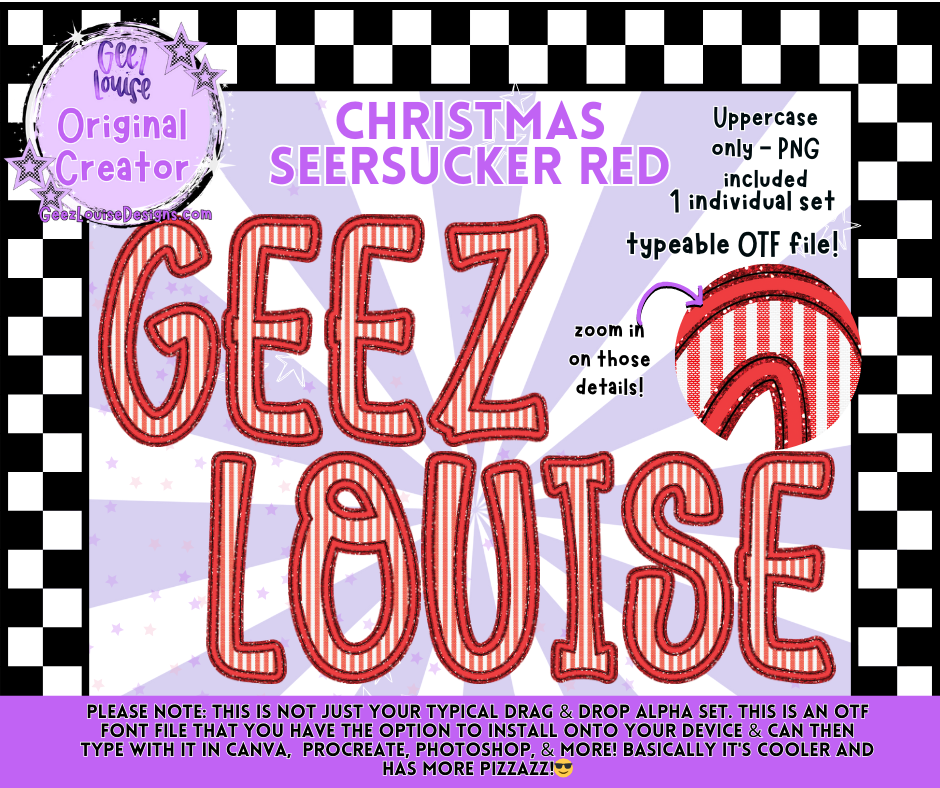
Add a festive twist to your holiday projects with the Christmas Seersucker Red Alpha Font & PNG Set by Geez Louise! 🎄✨
This typeable OTF font and matching PNG set features bold, red-and-white seersucker–style letters with a cozy, handmade feel. Perfect for creating holiday shirts, ornaments, cards, and digital designs that pop with cheerful Christmas spirit.
Bring classic holiday vibes into your designs with this must-have alpha set. Whether you’re making festive merch, sublimation prints, or digital graphics, this font adds the perfect seasonal pizzazz.